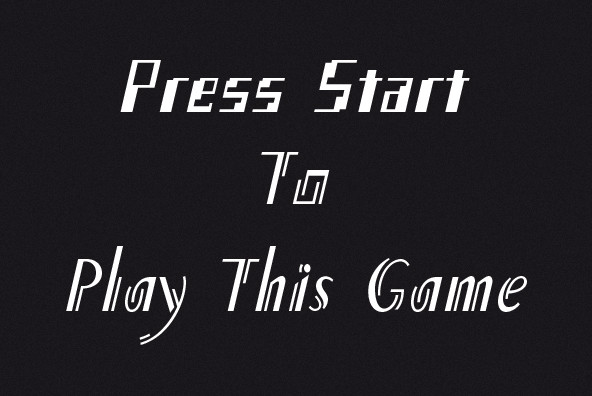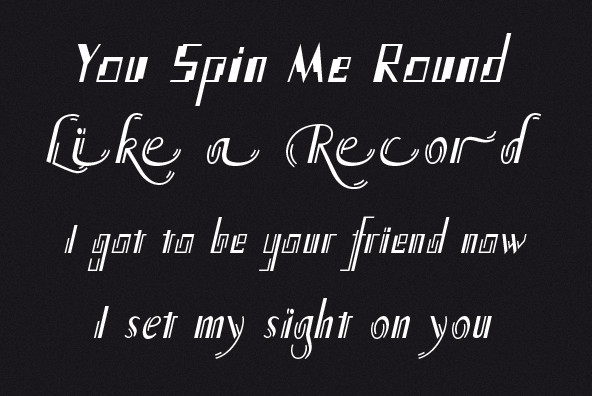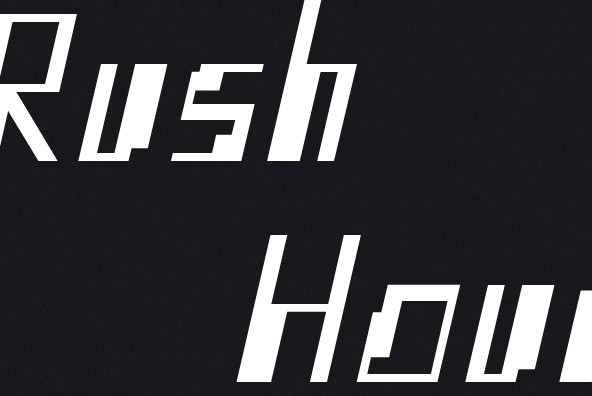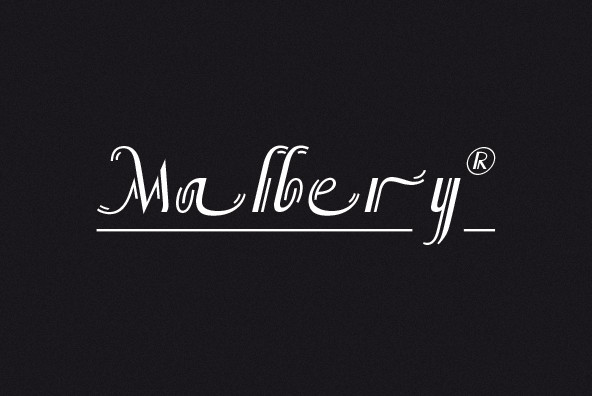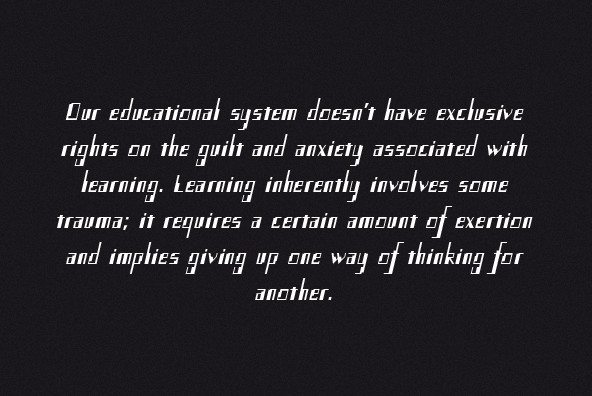
P22 Counter
Designed by Canada Type principal Patrick Griffin, P22 Counter is a very geometric font based on parallel strokes. The Cursive and Swash Alts styles were based on the idea for an uncredited film face called Whitley, published by a little known English typesetting house in the early 1970s. Line & Hack are extrapolations of the above. Single styles are offered in basic OpenType with linguistic support for Central and Eastern European, Turkish, Baltic, Celtic/Welsh and Esperanto character sets. Counter Cursive Pro combines Cursive & Swash Alts.